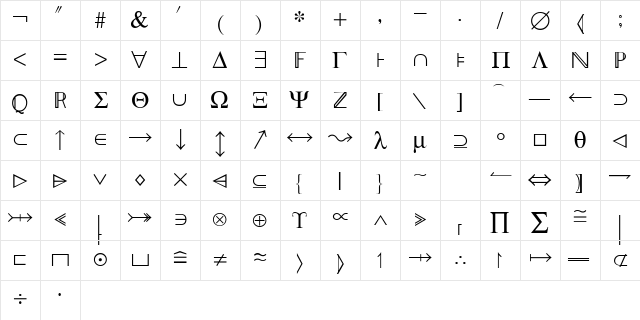
Zed Regular
Design Context for Zed Typeface
Zed is a composed and adaptable typeface that performs quietly and consistently across a wide range of design contexts.
Pro Tip: Use Zed in both headline and body roles to test its range before committing to a single application.